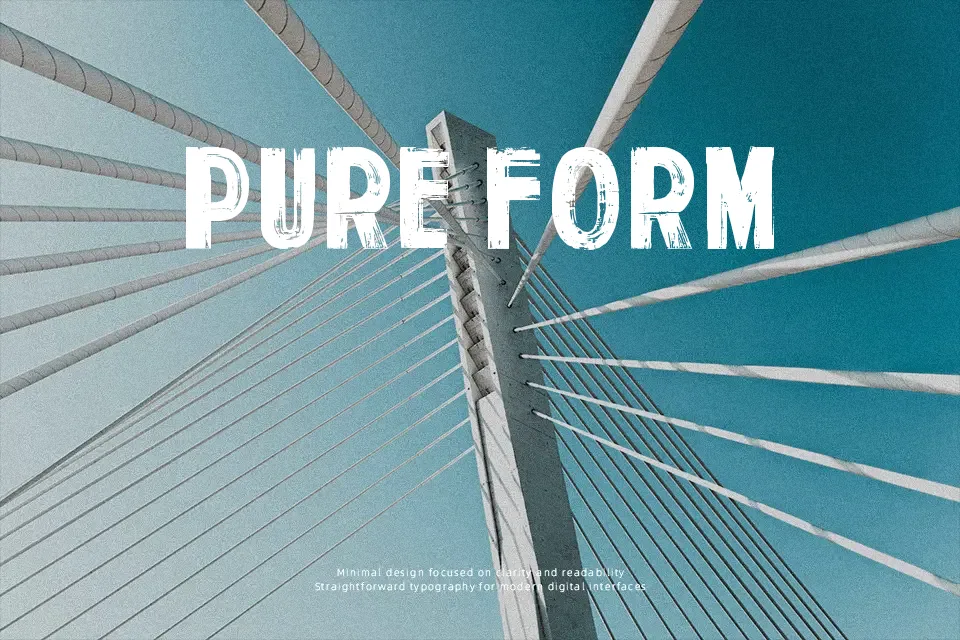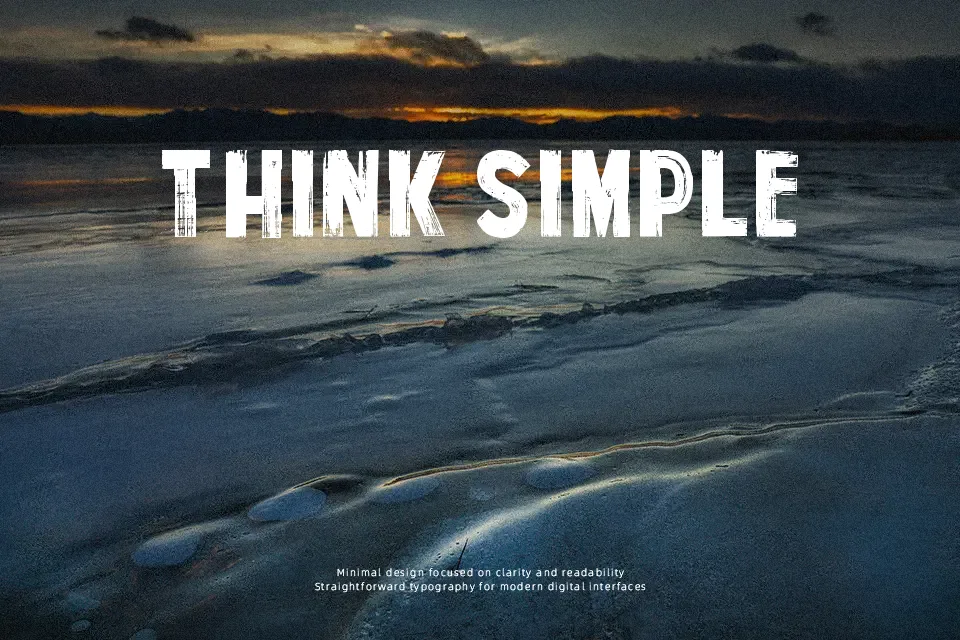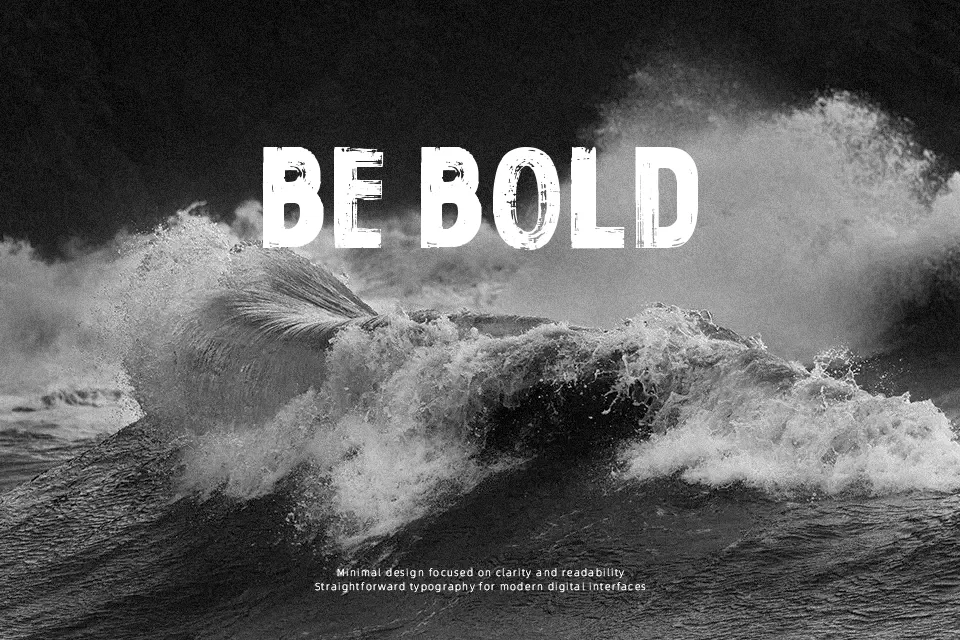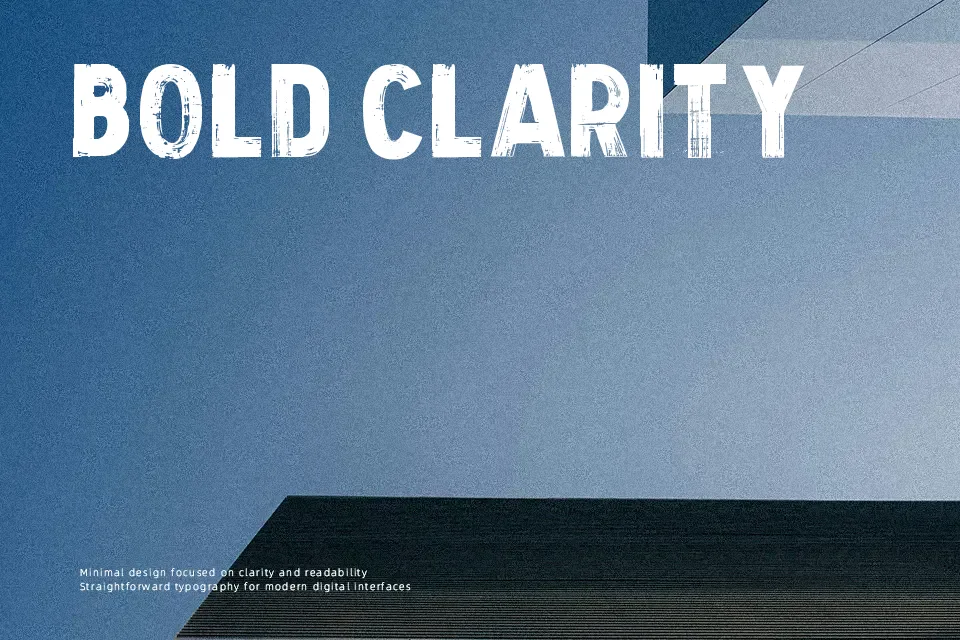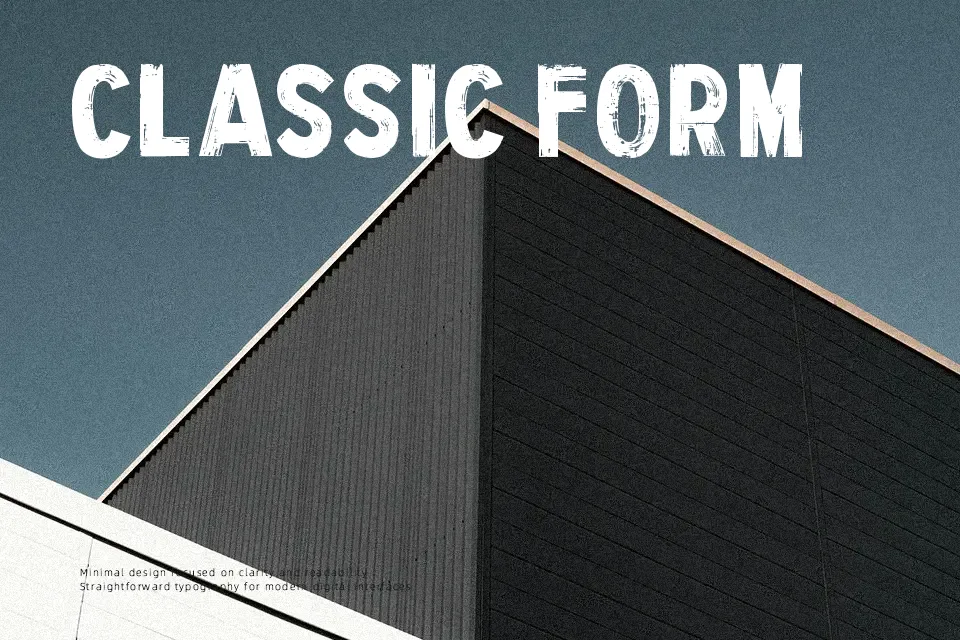
Personal Services Font
Personal Services Font works best as large display lettering, using condensed uppercase forms and rough, broken stroke edges to create a visibly weathered texture. The narrow proportions allow short words to sit compactly in poster and packaging layouts, while the irregular erosion keeps the design from feeling clean or formal. Its heavy silhouette remains noticeable in headlines, especially when used with generous scale and simple surrounding elements. The distressed surface is the main visual feature, but it becomes less clear in small sizes or dense lines of copy. It is a practical choice for designs that need a worn, direct typographic presence.
Best For: music event posters,apparel graphics,grunge product packaging,website hero headlines
Perfect for advertising, headline, and music, with a bold and condensed style.